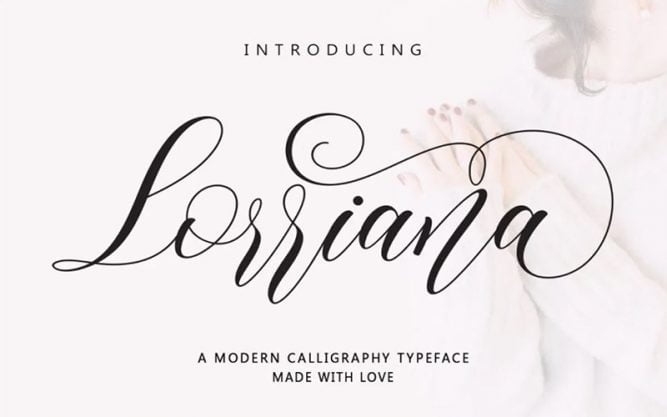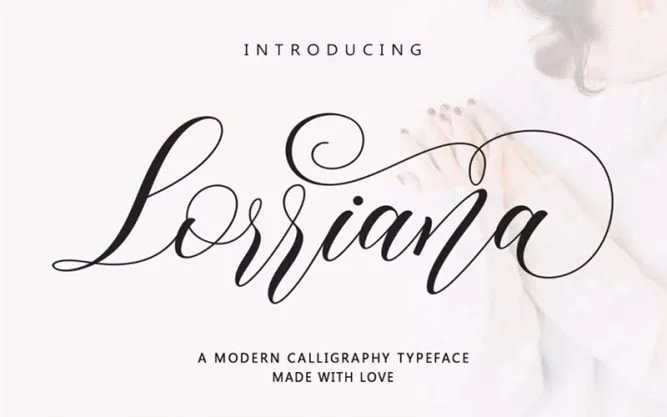
Lorriana Font is a modern and stylish calligraphy typeface, each letter carefully crafted to make your text look beautiful. This stunning typeface was created and shared by Moly Mol for the first time.
This script font family can be found in a single style with True Type file format. It has come with features of different baselines, classic smooth lines, and elegant touch.
Due to its beautiful classic appearance, you can easily use this calligraphy typeface in creating fashion magazines, fabric printing, video titling, book covers, movie posters, banner designs, and much more.
It would also be wise to use it for blog headers, invitations, greeting cards, branding, logos, letters, stationery card printing, or special occasions such as weddings, birthdays, and parties.
Lorriana Font
| Font Name: | Lorriana Font |
| Style: | Calligraphic, Script, Typeface |
| Font Designer: | Moly Mol |
This soft typeface is an amazing cut pack for its deep styling and awesome features as well as various designing methods. It contains 480+ glyphs, alternative characters, stylistic sets, stylistic alternates, and contextual alternates.
This unique font family comes only in regular style but it combines everything from copper decoration to modern typeface, ideal, virtue, and wonderful touch.